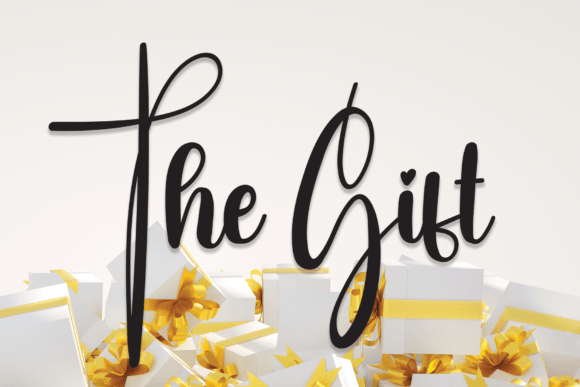
Introducing "The Gift" font, a handwritten masterpiece crafted by andikastudio. A script font family exuding sweetness and elegance, The Gift is a treasure for your creative pursuits. Designed to captivate hearts and bring joy to your projects, The Gift is the perfect choice for those seeking a touch of romance and personalization. Whether you're crafting wedding invitations, heartfelt cards, or any design that calls for a hint of charm, The Gift will elevate your creations beyond imagination. Its delicate strokes and playful spirit will add a touch of enchantment to every word you write.
With its enchanting qualities, The Gift is an ideal companion for designing wedding invitations. Its graceful curves and flowing lines will add a romantic aura to your special day, making every invitation a keepsake. Create cards that overflow with warmth and affection, expressing your heartfelt sentiments in a truly unique way. Let The Gift be your muse as you design save-the-date cards, anniversary greetings, or simply heartfelt notes to loved ones.
For flyer designs that demand attention, The Gift is the secret weapon you've been searching for. Its captivating presence will make your flyers stand out from the crowd, ensuring your message reaches its intended audience. Whether you're promoting an event, a product, or a cause, The Gift will add a touch of elegance and sophistication, leaving a lasting impression on your readers. Experience the magic of The Gift and watch as your flyers transform into works of art.
The Gift isn't just a font; it's an experience that will ignite your imagination and make your creative dreams come alive. Its beauty lies in its versatility, seamlessly adapting to a wide range of design projects. From posters and logos to branding and social media graphics, The Gift effortlessly elevates every concept it touches. Dive into a world of limitless possibilities and witness the transformation that The Gift brings to your designs.